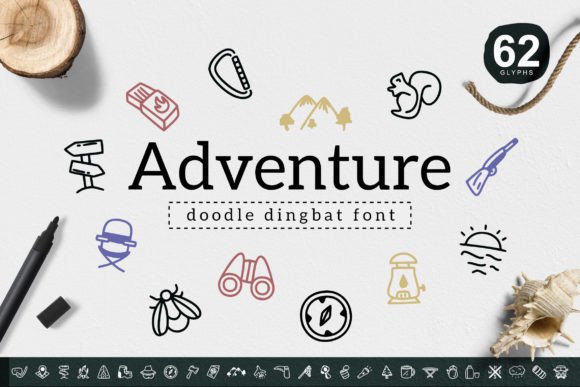
The Ultimate Guide to Adventure Font: Unleash Your Creativity
A Personal Review of Adventure Font
- ✨ Cute and Playful Design: The Adventure font is incredibly charming, making it perfect for projects that require a touch of whimsy.
- ✅ Versatility: It’s suitable for a wide range of projects, including stickers, posters, t-shirts, cards, and apparel graphics.
- 💡 Ease of Use: The font is straightforward to use, even for those who are new to design or not tech-savvy.
- 🤔 Limited Formality: The Adventure font is playful and cute, which might not be suitable for projects requiring a more formal or professional tone.
- ⚠️ Glyph Limitations: While the font comes with a variety of glyphs and symbols, it might not have everything you need for highly specialized projects.
The Backstory of Adventure Font
The Adventure font was designed with the creative hobbyist and small business owner in mind. Its creator aimed to craft a font that was not only visually appealing but also highly versatile and easy to use. The design process involved experimenting with various glyphs and symbols to ensure the font could be used across a wide range of projects, from stickers and posters to apparel graphics.
| Q: What type of projects is the Adventure font best suited for? | A: The Adventure font is perfect for projects like stickers, posters, t-shirts, cards, and apparel graphics that require a cute and playful touch. |